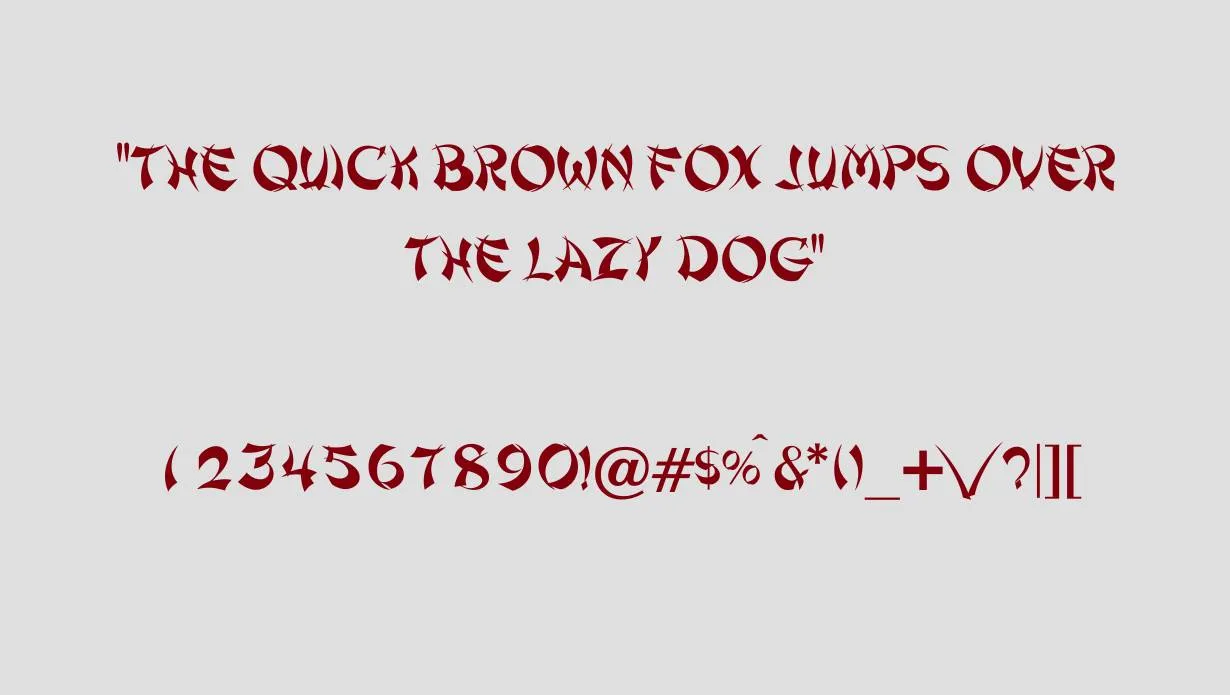
Shanghai Font introduces an exotic and artistic feel, making it perfect for designs that want to convey cultural richness. With its unique characters, it’s an ideal choice for projects aiming to stand out creatively.